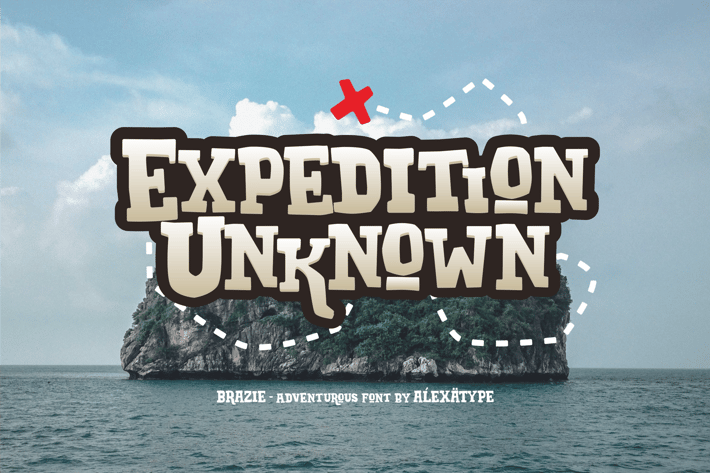
BRAZIE- Adventurous Fun Font
BRAZIE- Adventurous fun font
With serif shape and bouncy baseline, BRAZIE bring an old classic western style font with a fun vibes.
Perfect for any outdoor activities poster, travel blog, tour poster, and so on.
Support multi language as well.